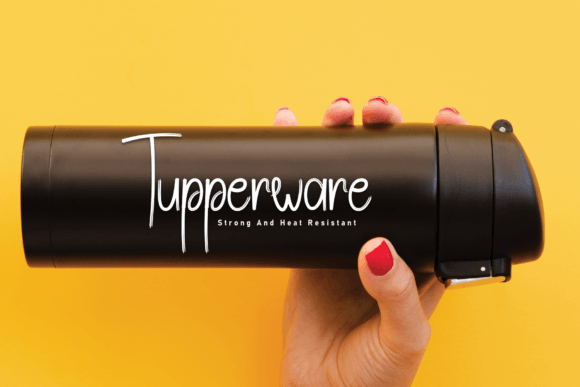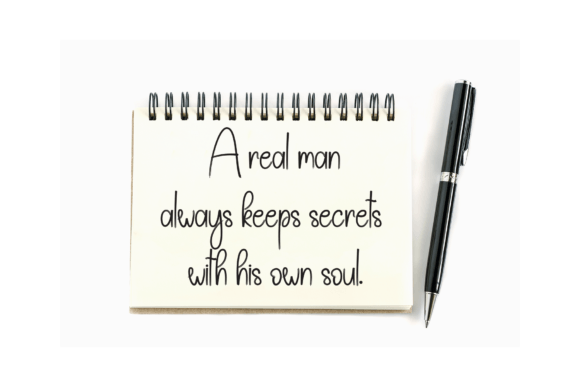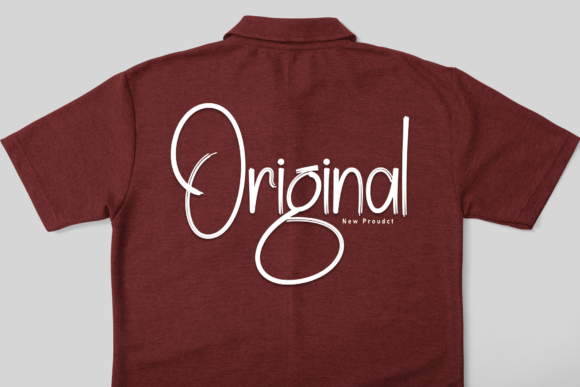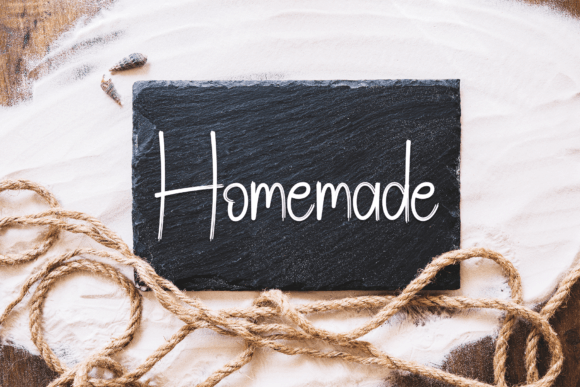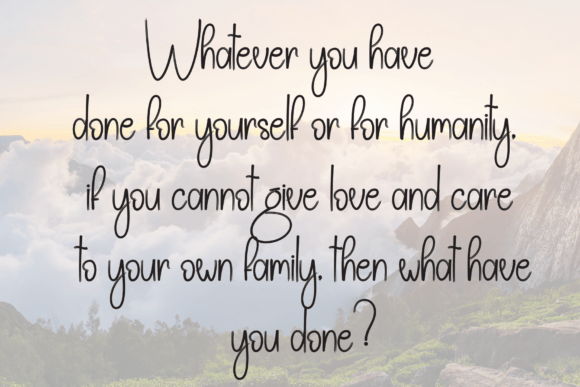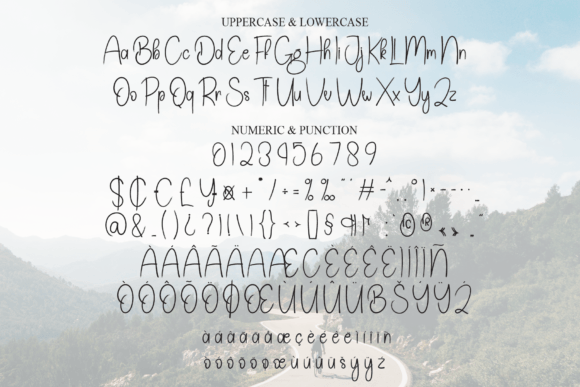
Introducing Happy Saturday Font: Add a Touch of Warmth and Personality to Your Designs
Are you tired of using the same old fonts in your designs? Do you want to add a personal touch that makes your work stand out? Look no further than Happy Saturday Font, a charming handwritten font that’s perfect for bringing a sweet and friendly vibe to your projects. With its smooth, flowing strokes and delightful charm, Happy Saturday is sure to become your go-to font for invitations, greeting cards, and cozy branding.
The Characteristics of Happy Saturday Font
Happy Saturday Font is a beautifully crafted handwritten font that exudes warmth and personality. Its smooth, flowing strokes give it a natural and effortless feel, making it perfect for designs that require a personal touch. The font’s friendly character is sure to put a smile on your audience’s face, making it ideal for projects that aim to bring joy and happiness.
One of the standout features of Happy Saturday Font is its versatility. Whether you’re designing invitations, greeting cards, or branding materials, this font is sure to add a touch of charm and whimsy to your work. Its unique character makes it perfect for a wide range of projects, from formal events to casual gatherings.
Why Choose Happy Saturday Font?
So, why choose Happy Saturday Font over other fonts? Here are just a few reasons why designers and crafters love this delightful font:
- Unique and eye-catching: Happy Saturday Font is a one-of-a-kind font that’s sure to grab attention. Its charming character and smooth strokes make it a standout in any design.
- Perfect for personal projects: Whether you’re designing for yourself or for a client, Happy Saturday Font is perfect for personal projects that require a touch of warmth and personality.
- Easy to read: Despite its playful and whimsical nature, Happy Saturday Font is easy to read, making it perfect for designs that require a clear and concise message.
- Versatile: Happy Saturday Font can be used for a wide range of projects, from formal events to casual gatherings.
How to Use Happy Saturday Font in Your Designs
Using Happy Saturday Font in your designs is easy. Here are a few tips to get you started:
- Pair it with other fonts: Happy Saturday Font pairs well with other fonts, making it easy to create a unique and eye-catching design.
- Use it for headings and titles: Happy Saturday Font is perfect for headings and titles, adding a touch of charm and whimsy to your design.
- Experiment with colors: Happy Saturday Font looks great in a variety of colors, so don’t be afraid to experiment and find the perfect hue for your design.
Perfect for Crafters and Designers
Happy Saturday Font is perfect for crafters and designers who want to add a personal touch to their work. Whether you’re creating handmade cards, invitations, or branding materials, this font is sure to bring a touch of warmth and personality to your designs.
With Happy Saturday Font, you can:
- Create unique and eye-catching designs: Happy Saturday Font is sure to make your designs stand out from the crowd.
- Add a personal touch: Happy Saturday Font brings a touch of warmth and personality to your designs, making them feel more personal and special.
- Save time: With Happy Saturday Font, you can create beautiful designs in no time, thanks to its easy-to-use and versatile nature.
In conclusion, Happy Saturday Font is a charming handwritten font that’s perfect for designers and crafters who want to add a touch of warmth and personality to their work. With its smooth, flowing strokes and delightful charm, Happy Saturday is sure to become your go-to font for invitations, greeting cards, and cozy branding.